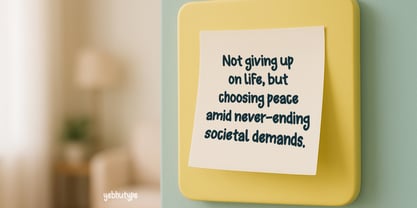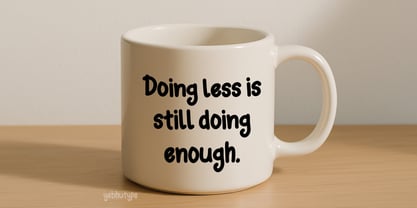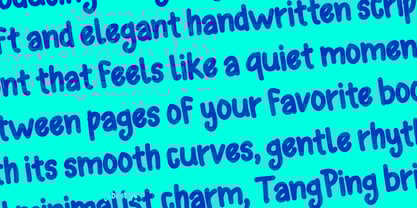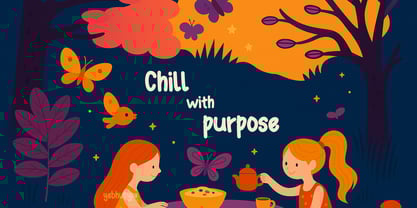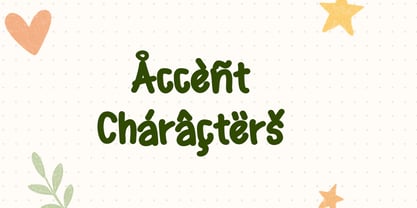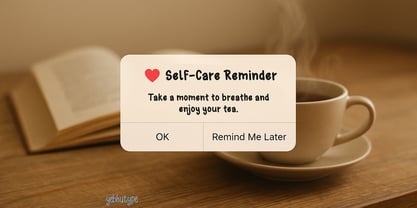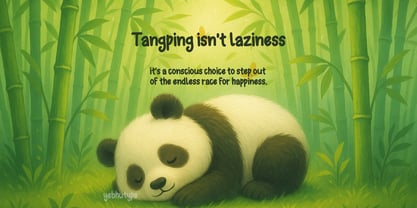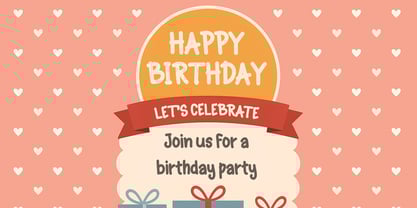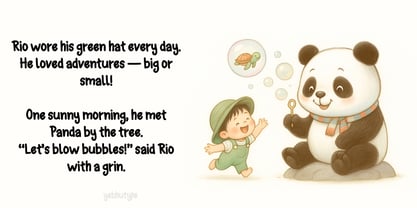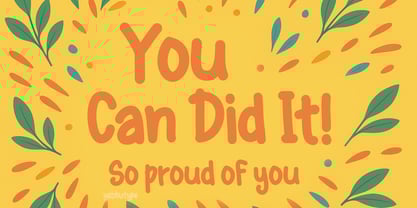
TangPing – A Gentle Whisper of Elegance for Every Thoughtful Design
TangPing : Where Simplicity Meets Soul in Typography
Introducing TangPing — a beautifully soft and elegant handwritten script font that feels like a quiet moment between pages of your favorite book. With its smooth curves, gentle rhythm, and minimalist charm, TangPing brings a sense of calm, sophistication, and sincerity to every word it forms.
Inspired by the beauty of natural handwriting and the elegance of minimal design, TangPing is more than just a font — it's an invitation to create with intention, warmth, and grace.
💫 The Essence of TangPing
TangPing embodies the quiet poetry of simplicity. It’s designed to feel personal, yet refined — perfect for creatives who want to convey emotion without overwhelming the eye. Whether you're crafting delicate branding materials, heartfelt greeting cards, or digital content that speaks directly to the soul, TangPing delivers a message that feels both timeless and contemporary.
It’s the typographic equivalent of a handwritten note sealed with care — soft, sincere, and full of meaning.
✨ Key Features
📝 Elegant Handwritten Style
Each character flows naturally, mimicking the rhythm of real handwriting while maintaining a polished, artistic edge.
☁️ Smooth, Airy Curves
The soft strokes and flowing lines give TangPing a light and airy feel, making it ideal for designs that need to feel warm and approachable.
🎨 Minimalist Yet Expressive
With its clean structure and subtle variations, TangPing strikes the perfect balance between minimalism and expressiveness.
📚 Highly Readable & Versatile
Despite its decorative style, TangPing remains highly legible at various sizes — making it perfect for everything from headlines to body text across print and digital media.
🔤 Complete Character Set
Includes uppercase, lowercase, numbers, punctuation, and multilingual support — so you can craft meaningful messages in any language.
🧡 Personality & Mood
TangPing is gentle, elegant, and quietly confident. It carries the warmth of human touch, the clarity of thoughtful design, and the emotional depth of storytelling. It’s the kind of font that makes your audience pause — not because it shouts, but because it speaks softly, clearly, and sincerely.
Whether you're designing something whimsical, nostalgic, or deeply personal, TangPing brings a tone of authenticity and emotional resonance that few fonts can match.
🎨 Why Choose TangPing?
In a world full of bold and busy typefaces, TangPing stands out by doing less — but meaning more. It’s a quiet celebration of elegance, imperfection, and the beauty of simplicity. It’s the kind of font that invites connection, evokes emotion, and elevates your creative work with a whisper rather than a shout.
Let TangPing help you tell stories that don’t just look beautiful — they feel beautiful too.